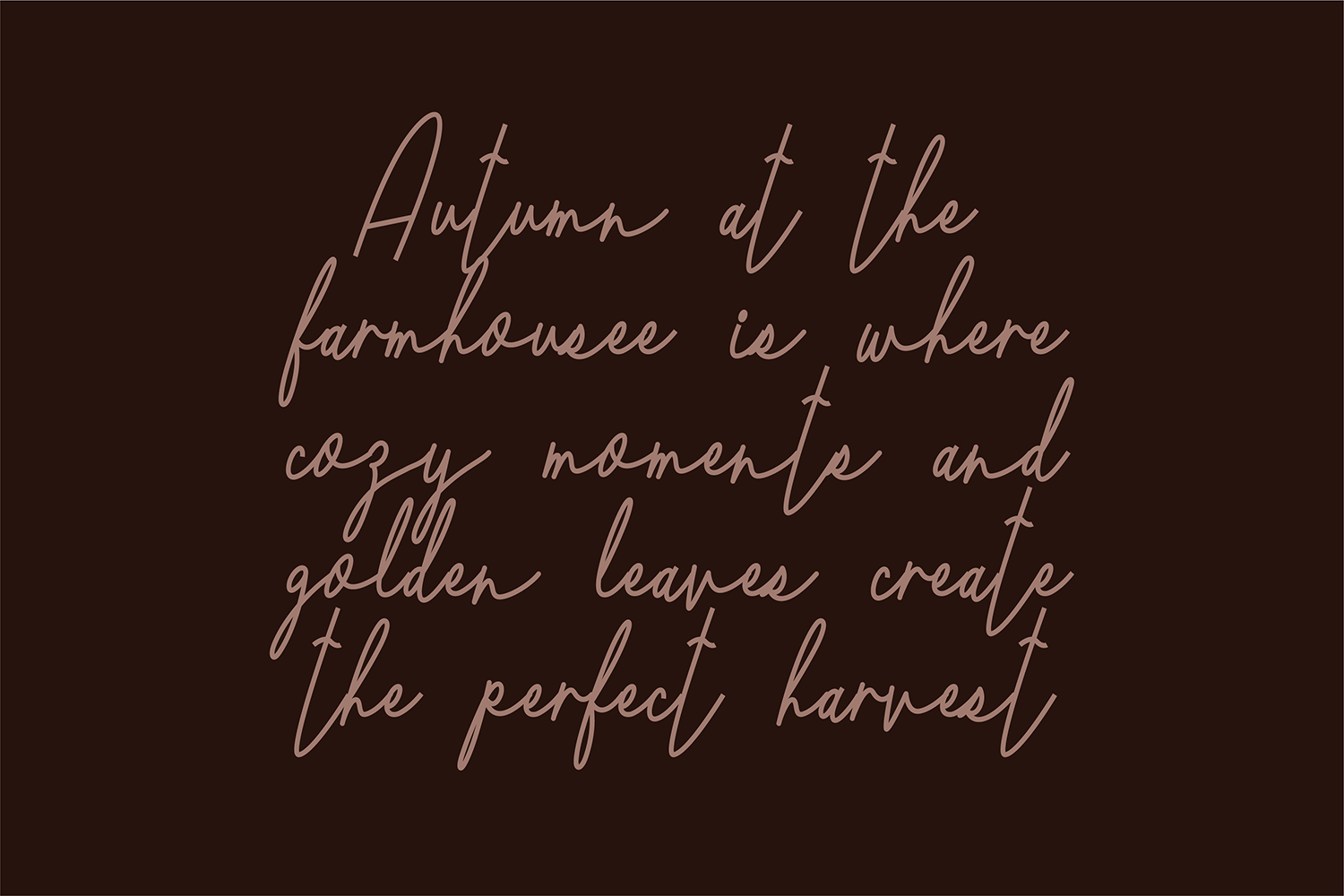
"Vintage Signature" vintage signature script font.
Includes intl characters!
This font is a whimsical brush font that is perfect for social media or crafty projects.
"Vintage Signature" vintage signature script font.
Includes intl characters!
This font is a whimsical brush font that is perfect for social media or crafty projects.